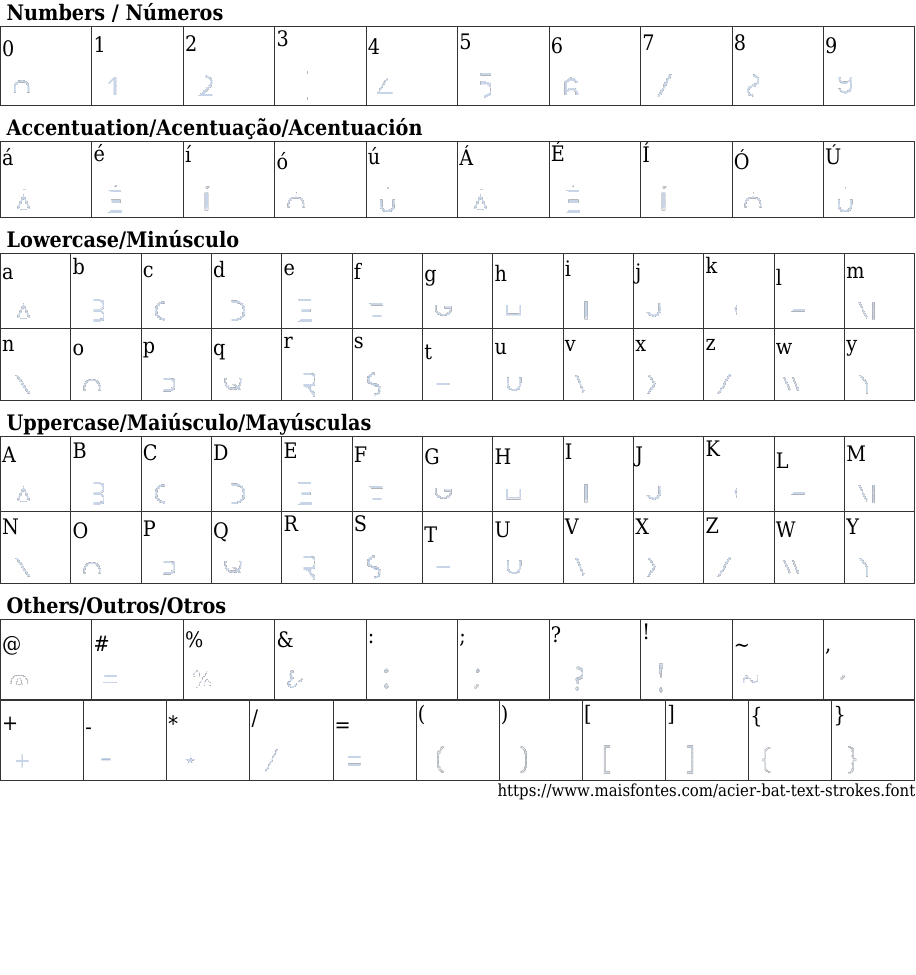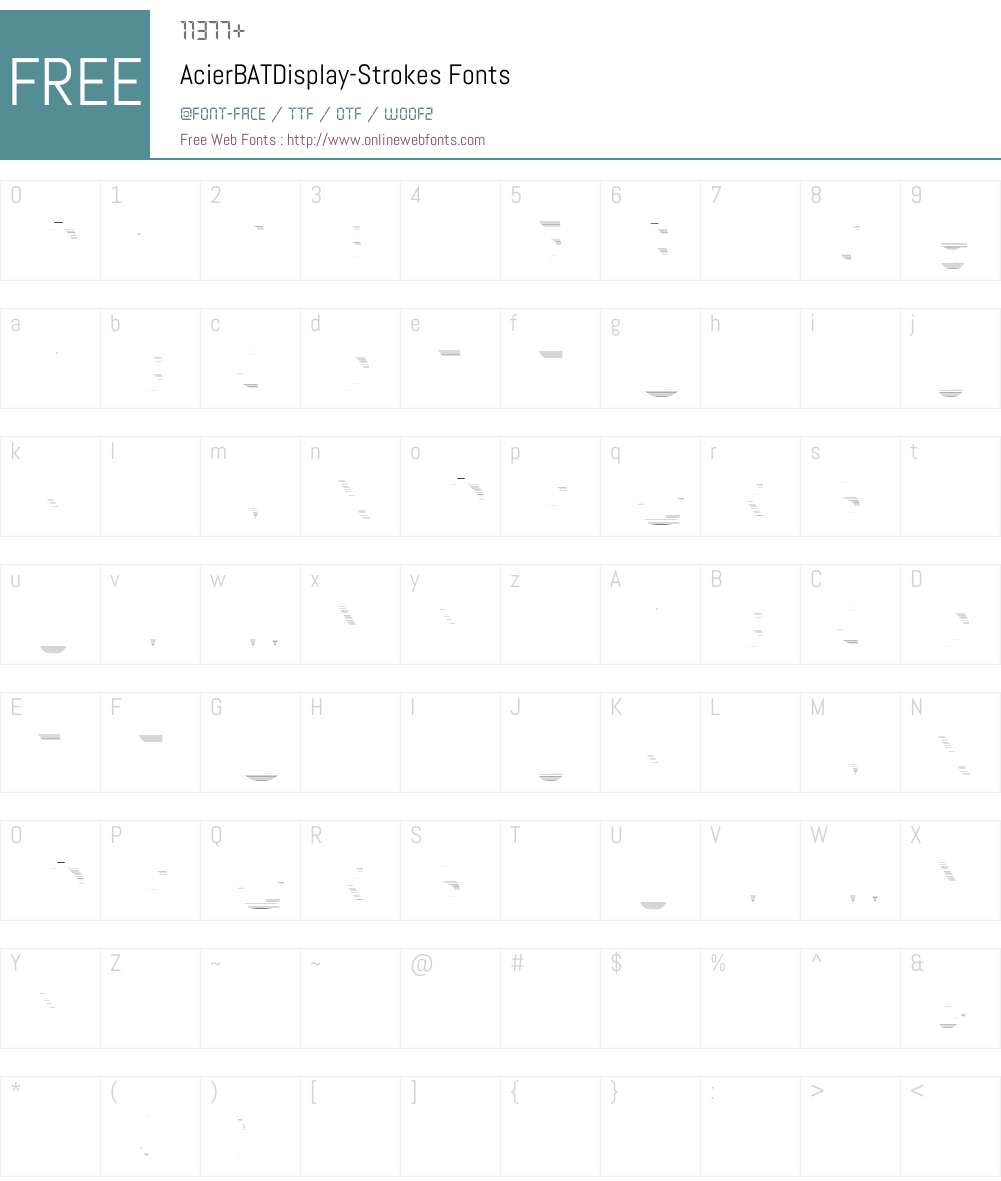
Acier Bat Font Free . Web acier font family. The font family acier bat text is great for creating an elegant identity, whether for titles or.
The font family acier bat text is great for creating an elegant identity, whether for titles or. A decorative typeface with 5 styles, available from adobe fonts for. Font generator ( ͡° ͜ʖ ͡°) designers;
Acier Bat Font Free - Web acier bat text font family: Web collection of fonts for bat fonts. The font family acier bat text is great for creating an elegant identity, whether for titles or. Web acier font family. Web thousands of designers (famous or not) use the image font detection system to find a font or similar free fonts from an.
Acier Bat Font Free - The font family acier bat text is great for creating an elegant identity, whether for titles or. A decorative typeface with 5 styles, available from adobe fonts for. Font generator ( ͡° ͜ʖ ͡°) designers; Web collection of fonts for bat fonts. Web acier font family.
Acier Bat Font Free - A decorative typeface with 5 styles, available from adobe fonts for. Web acier bat text font family: Web acier font family. Get to know the acier bat text font family and download it. Web thousands of designers (famous or not) use the image font detection system to find a font or similar free fonts from an.
Acier Bat Font Free - Font generator ( ͡° ͜ʖ ͡°) designers; Web acier bat text font family: Get to know the acier bat text font family and download it. Web collection of fonts for bat fonts.
Acier Bat Font Free - A decorative typeface with 5 styles, available from adobe fonts for. Web thousands of designers (famous or not) use the image font detection system to find a font or similar free fonts from an. Font generator ( ͡° ͜ʖ ͡°) designers; Web collection of fonts for bat fonts. Web acier bat text font family:
Acier Bat Font Free - Web acier font family. Font generator ( ͡° ͜ʖ ͡°) designers; Web thousands of designers (famous or not) use the image font detection system to find a font or similar free fonts from an. A decorative typeface with 5 styles, available from adobe fonts for. Web acier bat text font family:
Acier Bat Font Free - Web acier font family. Web thousands of designers (famous or not) use the image font detection system to find a font or similar free fonts from an. The font family acier bat text is great for creating an elegant identity, whether for titles or. Font generator ( ͡° ͜ʖ ͡°) designers; A decorative typeface with 5 styles, available from adobe.
Acier Bat Font Free - Web acier bat text font family: A decorative typeface with 5 styles, available from adobe fonts for. Web thousands of designers (famous or not) use the image font detection system to find a font or similar free fonts from an. Web acier bat text font family: Web acier font family.
Acier Bat Font Free - Font generator ( ͡° ͜ʖ ͡°) designers; Web thousands of designers (famous or not) use the image font detection system to find a font or similar free fonts from an. Web acier bat text font family: Web collection of fonts for bat fonts. Get to know the acier bat text font family and download it.
Acier Bat Font Free - Web thousands of designers (famous or not) use the image font detection system to find a font or similar free fonts from an. Web acier font family. The font family acier bat text is great for creating an elegant identity, whether for titles or. Web acier font family. A decorative typeface with 5 styles, available from adobe fonts for.
Acier Bat Font Free - Font generator ( ͡° ͜ʖ ͡°) designers; Web acier font family. Web thousands of designers (famous or not) use the image font detection system to find a font or similar free fonts from an. Get to know the acier bat text font family and download it. A decorative typeface with 5 styles, available from adobe fonts for.
Acier Bat Font Free - Web acier font family. Web acier bat text font family: Web acier font family. Web collection of fonts for bat fonts. A decorative typeface with 5 styles, available from adobe fonts for.
Acier Bat Font Free - Web acier bat text font family: The font family acier bat text is great for creating an elegant identity, whether for titles or. Web collection of fonts for bat fonts. A decorative typeface with 5 styles, available from adobe fonts for. Web acier bat text font family:
Acier Bat Font Free - Get to know the acier bat text font family and download it. A decorative typeface with 5 styles, available from adobe fonts for. The font family acier bat text is great for creating an elegant identity, whether for titles or. Web acier bat text font family: Web acier font family.